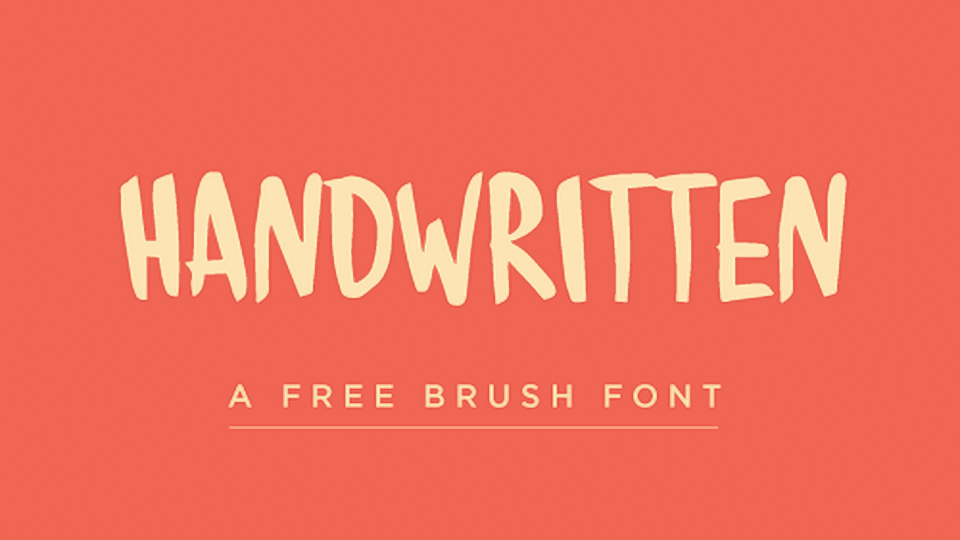
Download Handwritten font, a simple hand painted brush font with own personality. Perfect for craft works, t-shirt prints, posters, labels, badges, food menus and other creative projects.